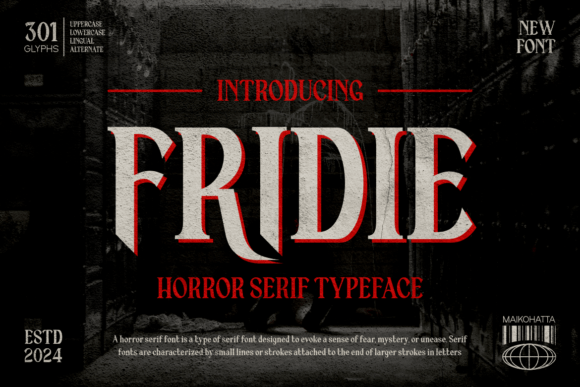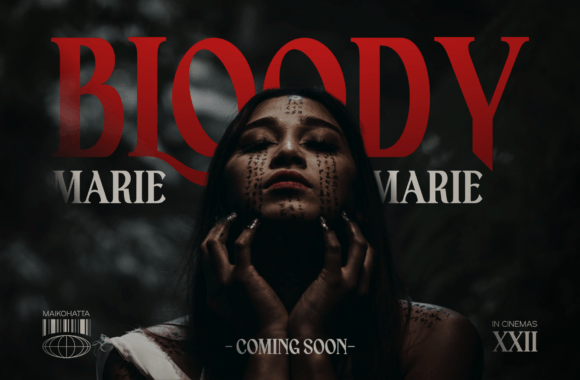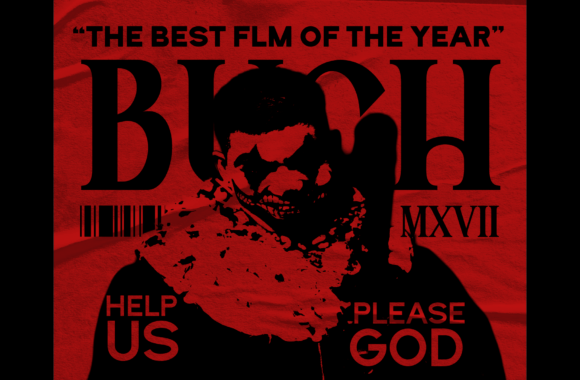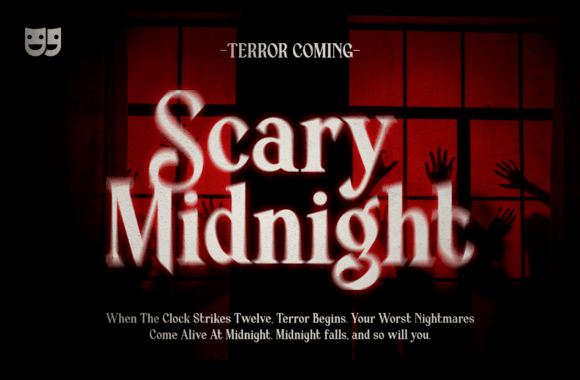
Fridie Font: A Spooky Horror Serif for Halloween Designs!
About the Fridie Font
Discover the charm of Fridie Font. This font is a perfect blend of modern aesthetics and classic appeal. Introducing our new product **Fridie** – Horror Serif Typeface
This font is a type of font specifically designed to create a spooky, mysterious atmosphere and depict the spirit of Halloween celebrations. This font can be used in various Halloween-related media, such as party invitations, posters, merchandise designs, greeting cards, warning signs, or within website designs with Halloween themes.
Fridie’s sharp serifs and dramatic x-height make it ideal for headlines, posters, and short impactful text on packaging or merchandise. Its strong personality shines in Halloween-themed projects but also works well for gothic-inspired branding or horror-genre related materials. Avoid using Fridie for body text or long paragraphs; its highly stylized forms would hinder readability.
For a balanced design, pair Fridie with a clean sans-serif like Montserrat for contrast, or a more playful script font like Pacifico for a less severe feel. A geometric sans-serif would offer a modern counterpoint, while a traditional serif like Garamond could provide a touch of classic elegance.
Fridie’s overall personality is bold and dramatic, conveying a sense of mystery and intrigue. It’s best suited to projects that demand attention and evoke strong emotions, particularly those with a darker or more suspenseful aesthetic.
Fridie Font Usage Examples
Fridie Font Example